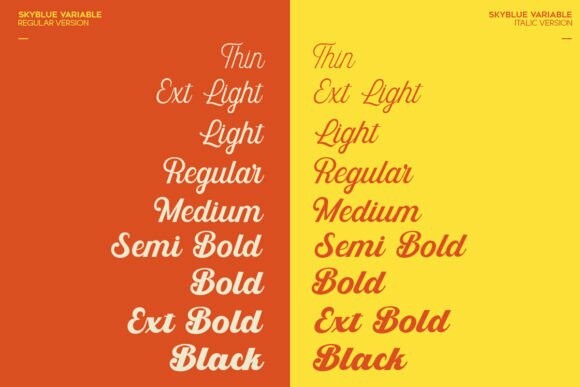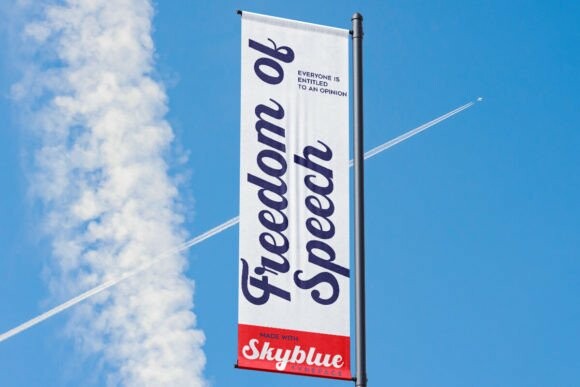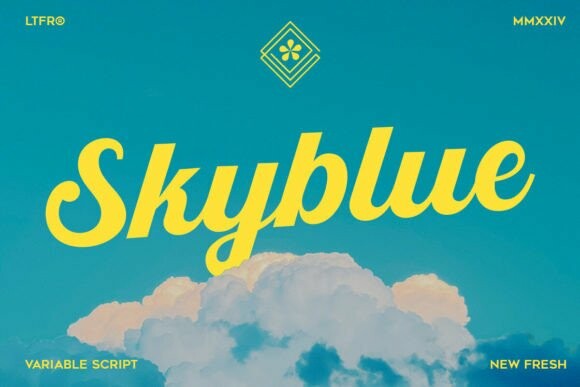
Skyblue Font Family
Designer: LetterFreshStudio
Skyblue Font Family, a new curve that carefully crafted and balanced script typefaces with personality. You can use it as a logo, badge, emblem, packaging, title, poster, t-shirt/clothing, greeting card, wedding invitation, etc. Flowing characters are ideal for creating engaging messages. Mix and match Skyblue Script- Font Family with a set of weights to suit your project.